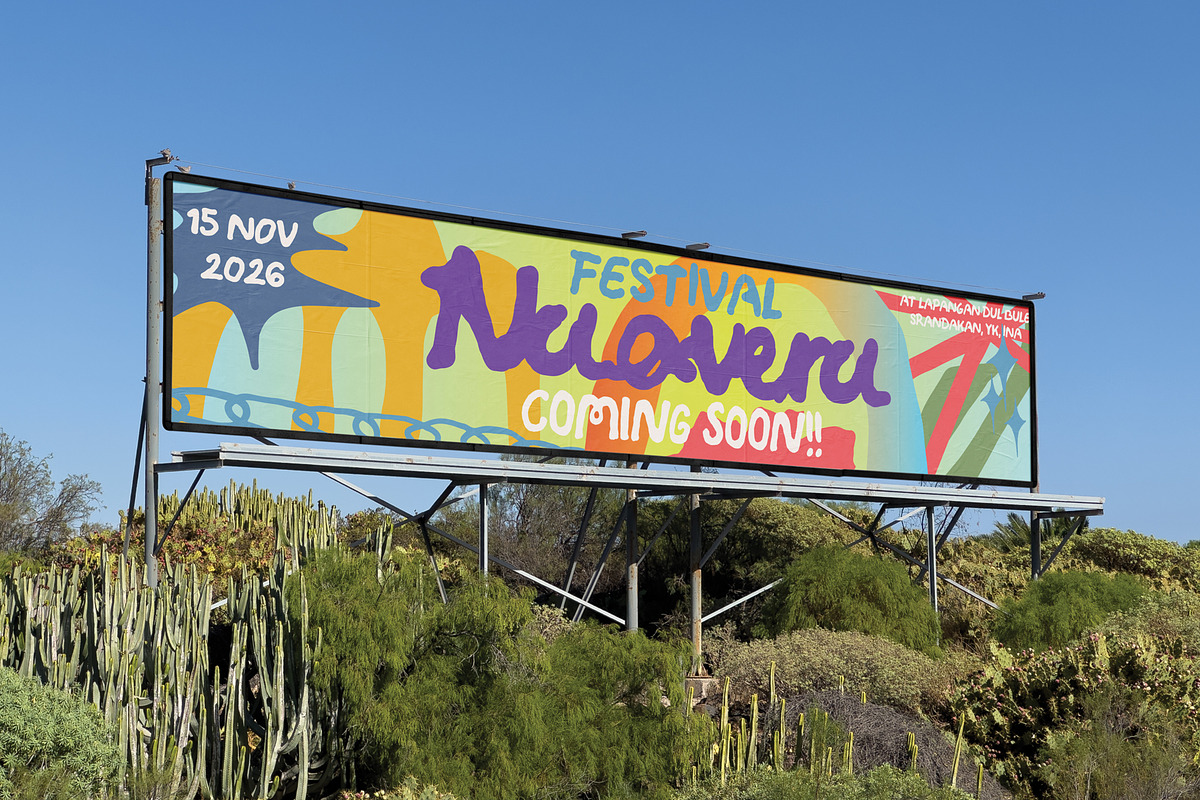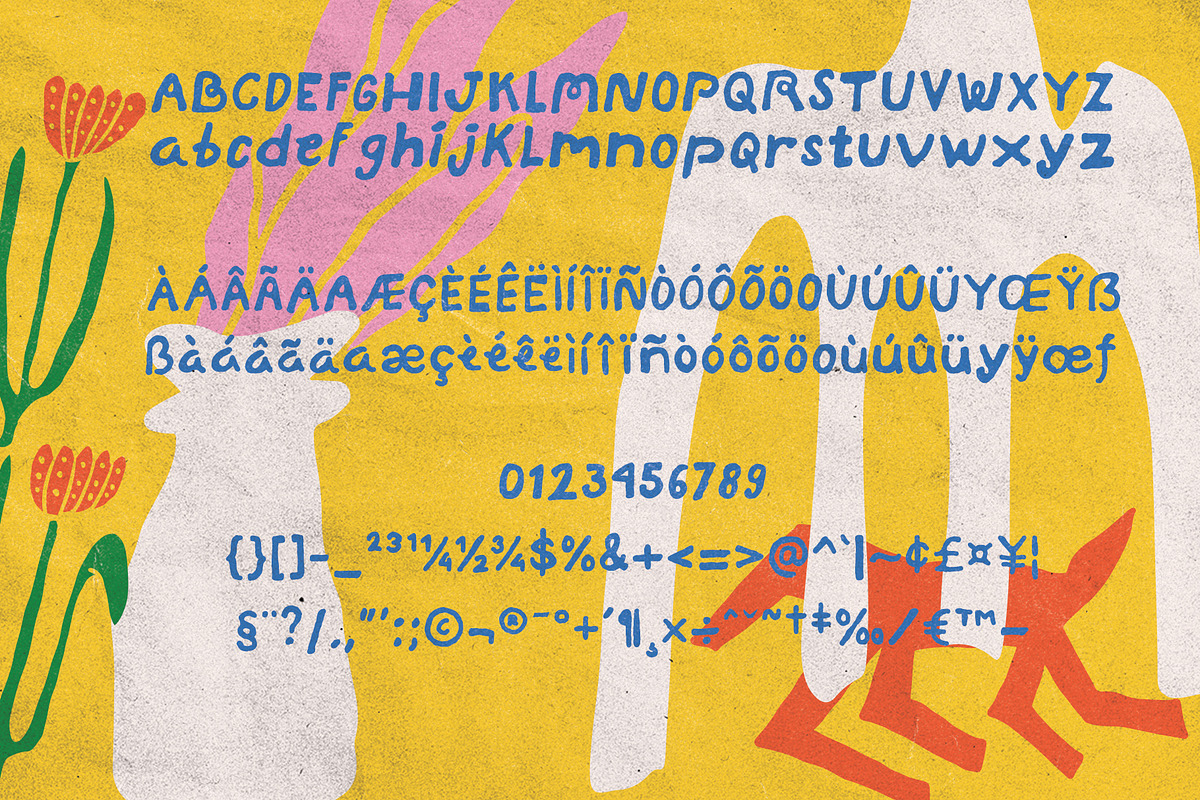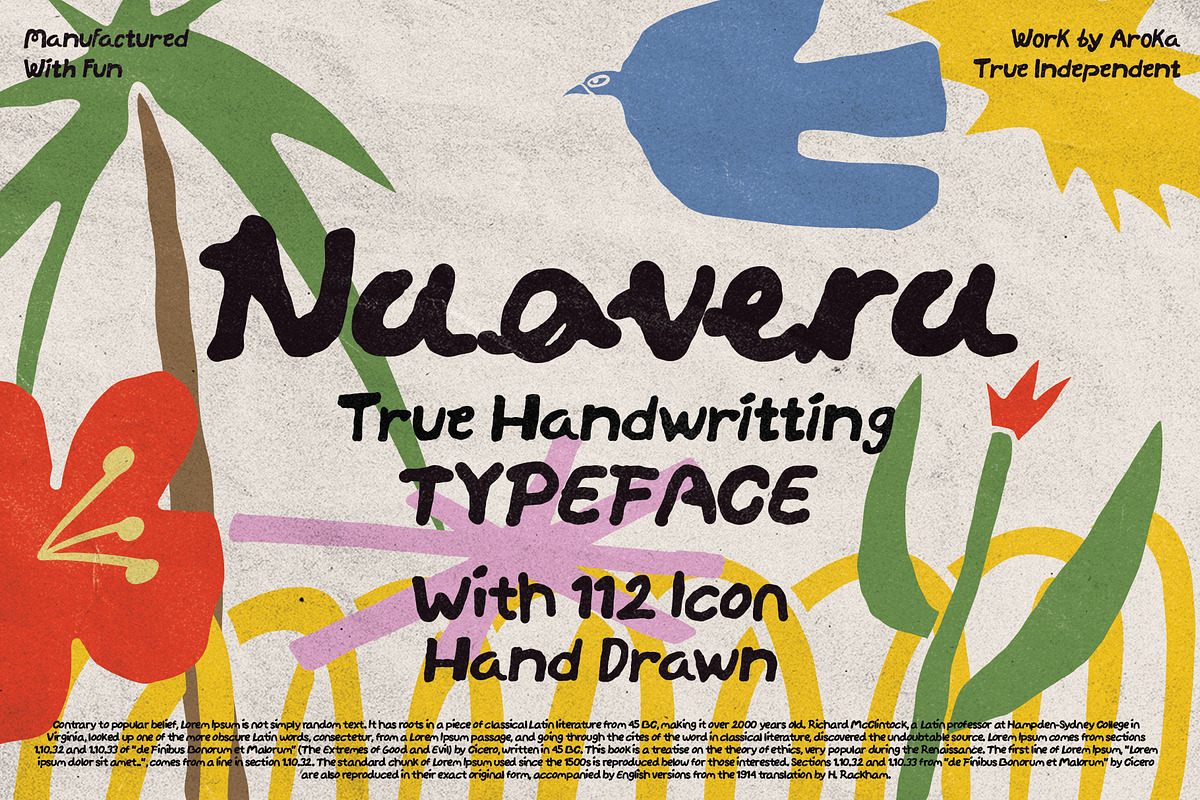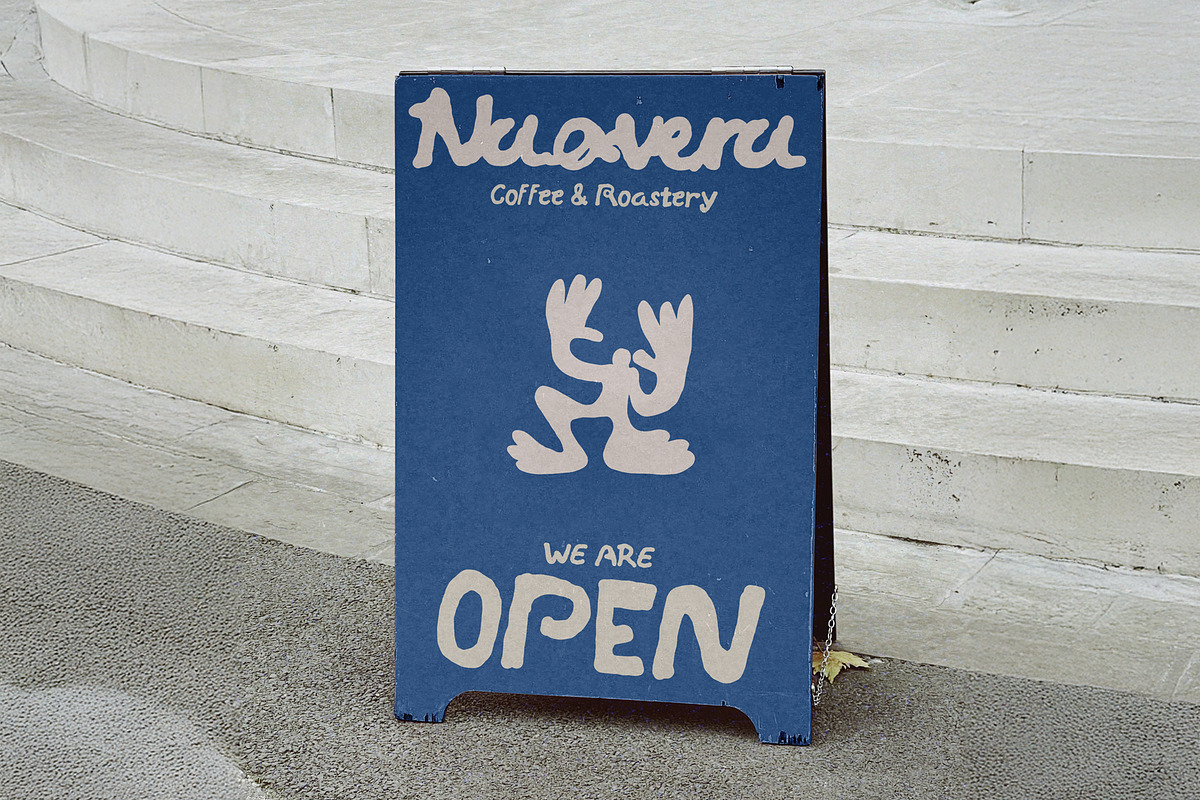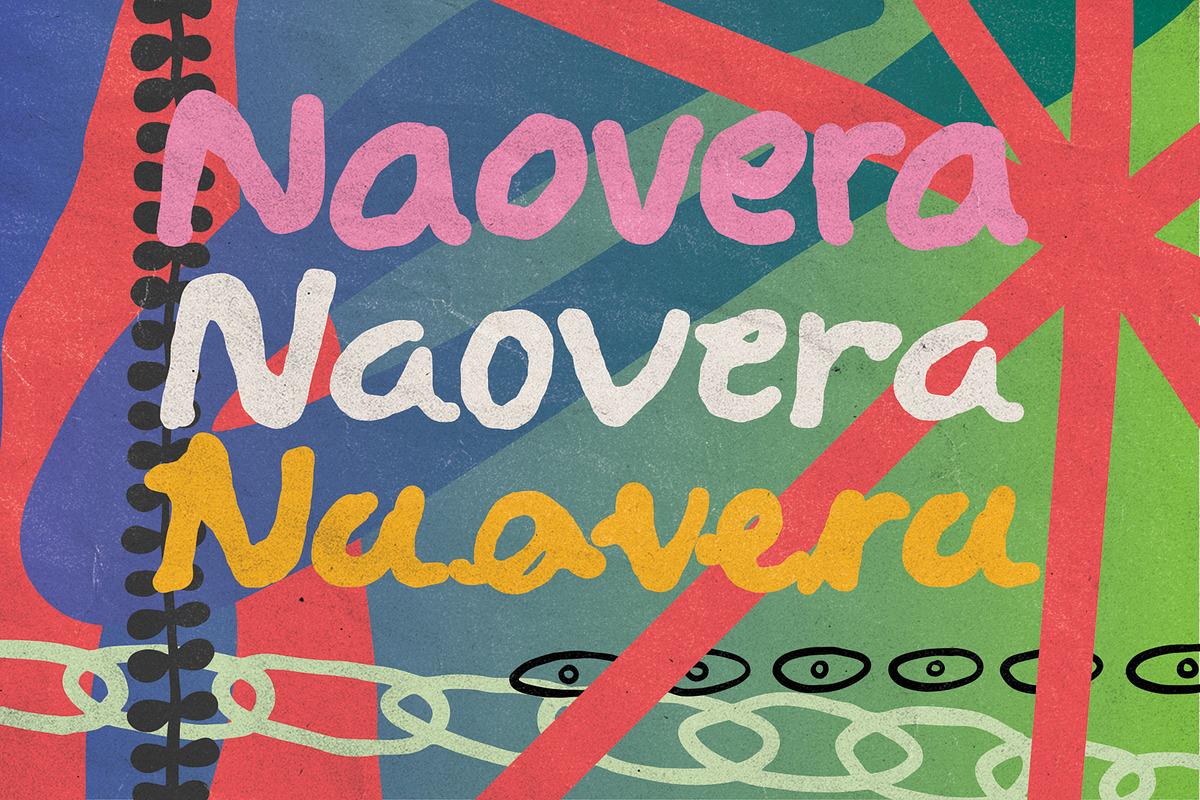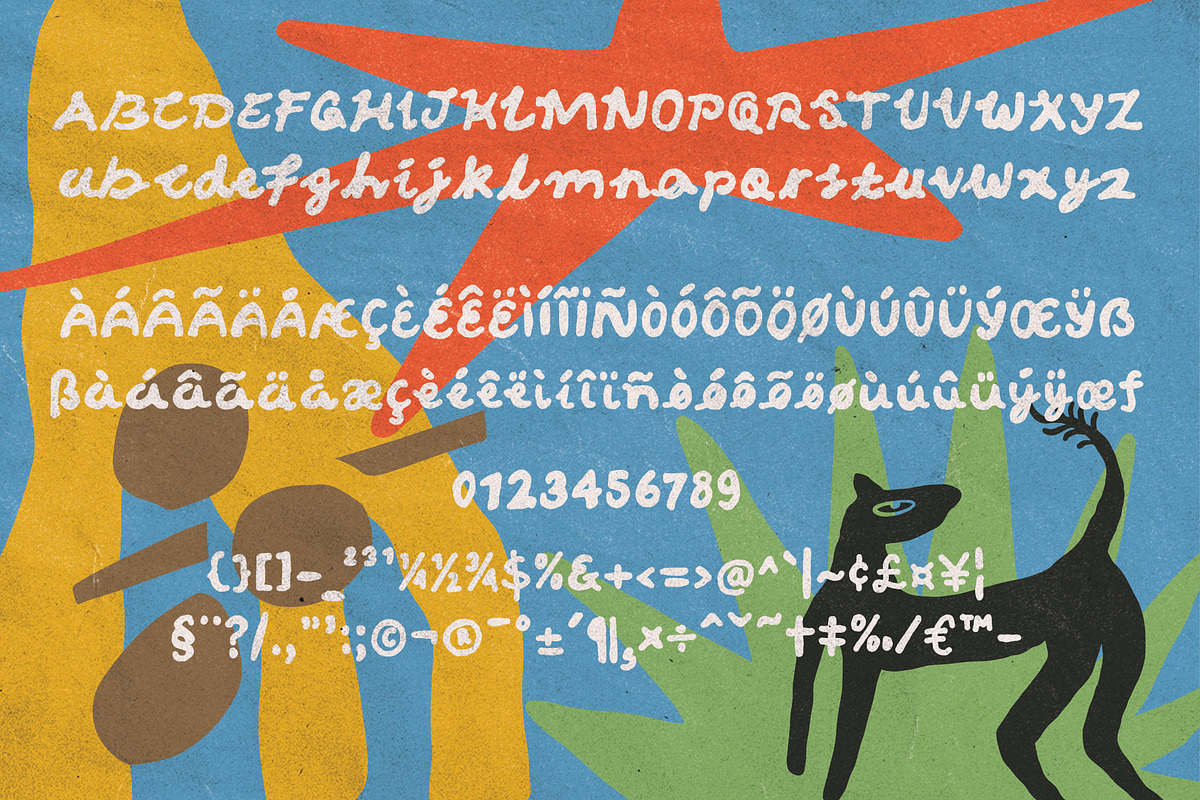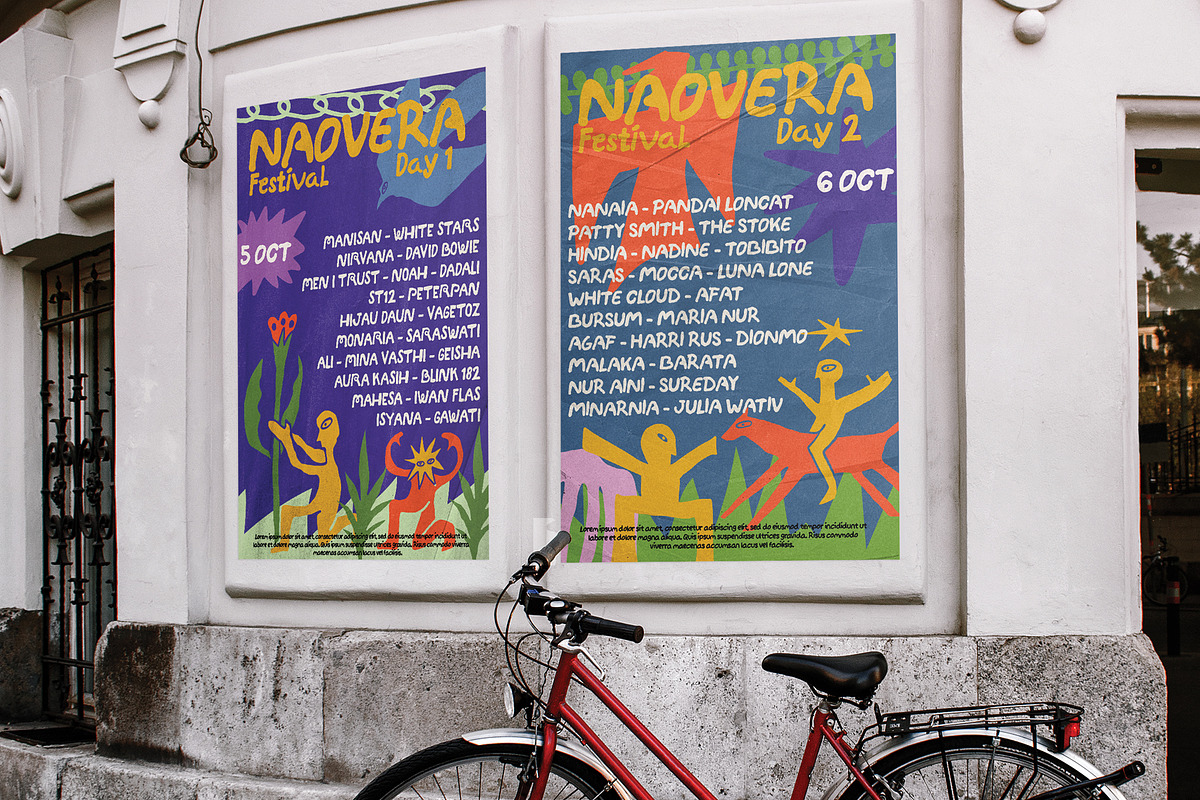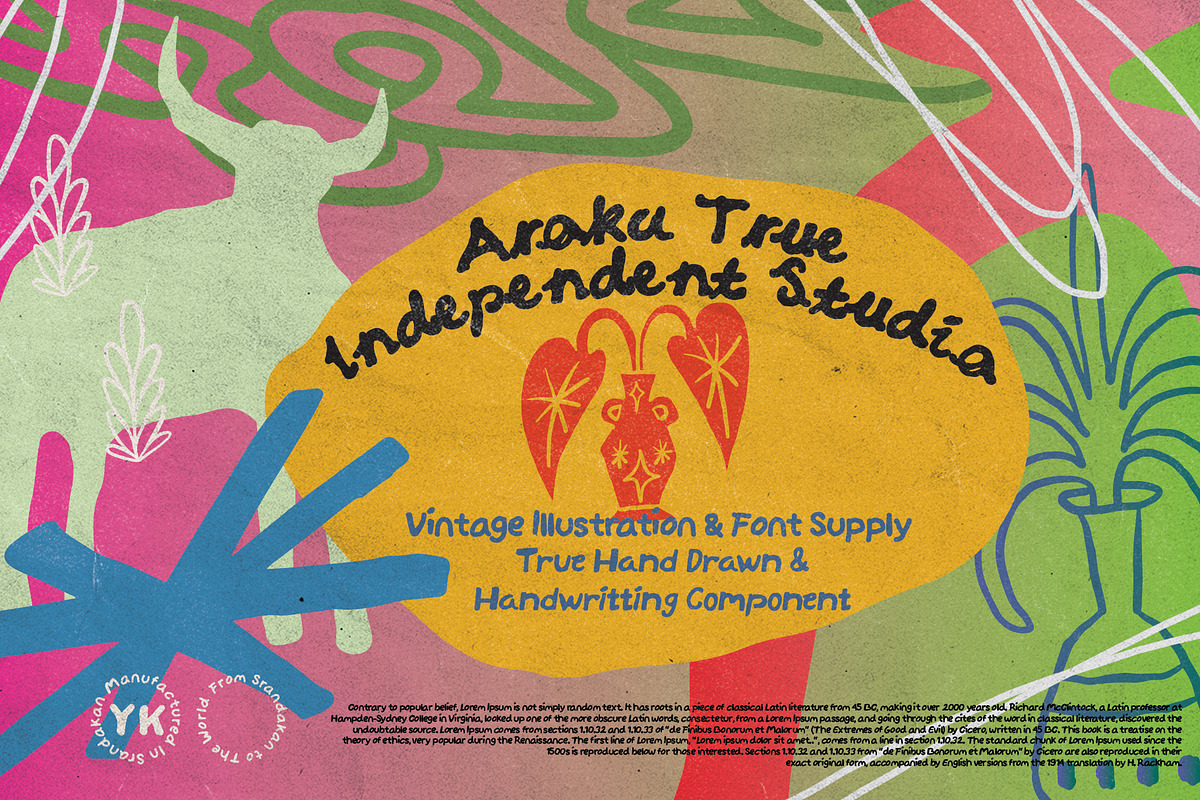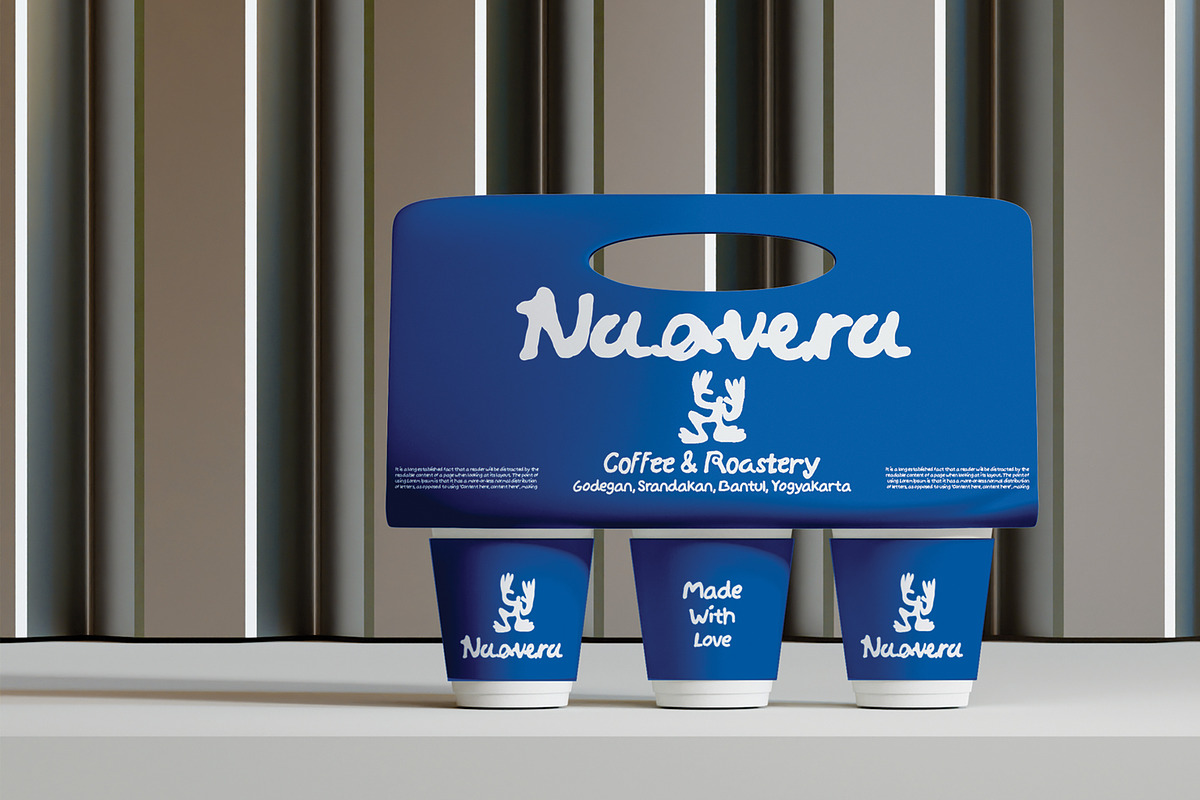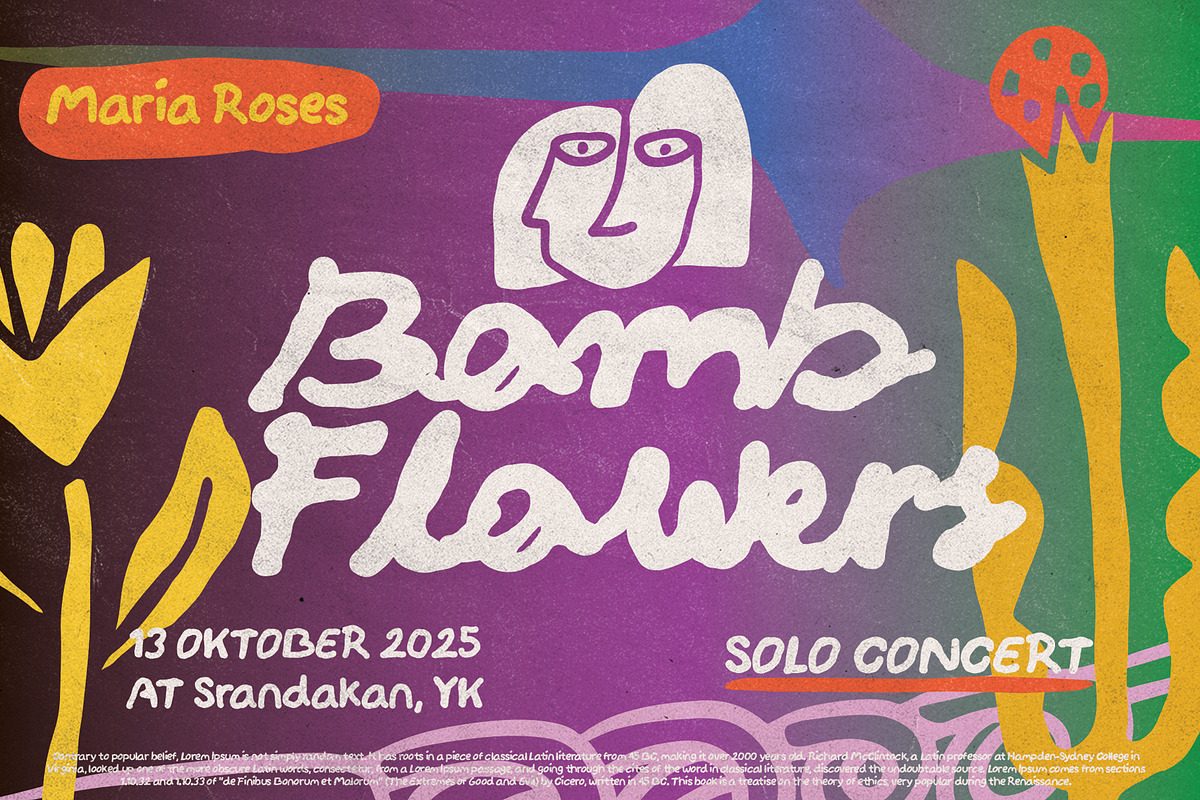
NAOVERA Handwritten
NAOVERA Formed from the joy of attending a concert or music festival, it's a joy to be around. It was definitely a pleasure designing this font. With 112 hand-drawn icons that are easy to edit, the formats are Adobe Illustration, PDF, SVG, and OTf. Don't hesitate to create fun graphics with this NAOVERA package :)